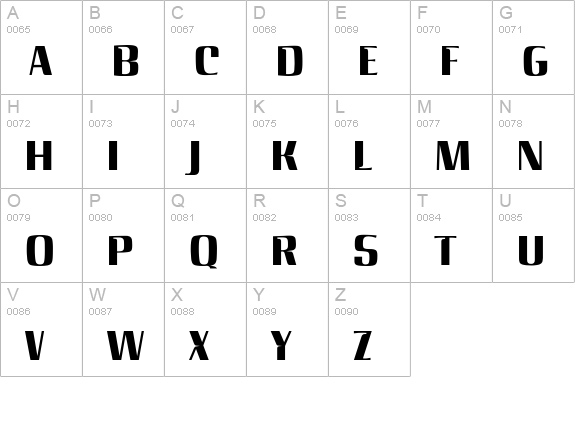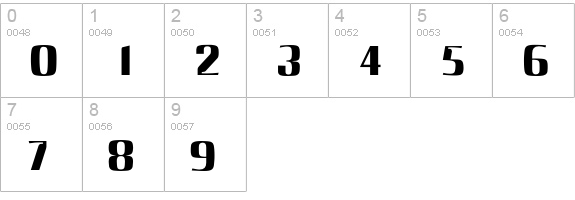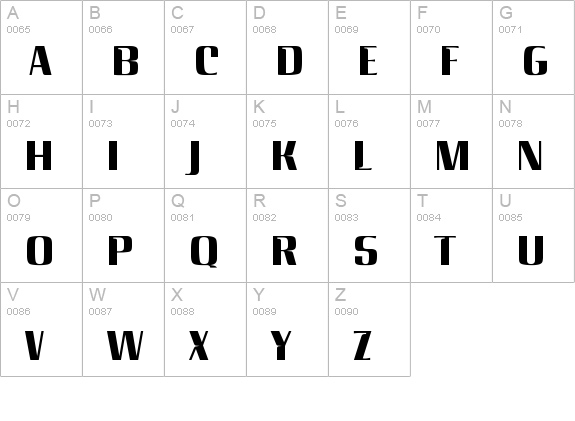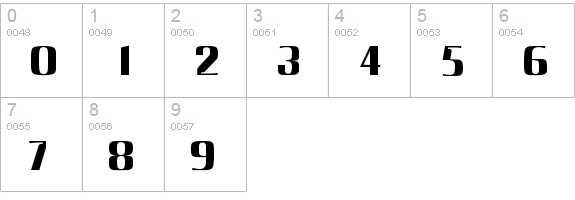
Steamer Font Details
Steamer font is a captivating and versatile typeface that exudes a sense of elegance and modernity. With its sleek and streamlined design, this font is perfect for adding a touch of sophistication to any design project. What sets Steamer font apart is not only its aesthetic appeal but also the fact that it is available for free. Yes, you read that right! Steamer font can be easily downloaded at FontsMarket.com without any cost. This makes it an ideal choice for designers, creatives, or anyone who wants to enhance their visual creations without breaking the bank. Whether you are designing a website, creating a logo, or designing a poster, Steamer font will effortlessly elevate your work to new heights. Its clean and legible characters make it suitable for both headlines and body text, ensuring that your message is conveyed with clarity and style. The versatility of Steamer font is further enhanced by its extensive character set. With a wide range of glyphs, including alternates, ligatures, and special characters, you have the freedom to customize and personalize your designs to suit your unique vision. The elegance and sophistication of Steamer font are made even more accessible by its free availability on FontsMarket.com. So why wait? Download Steamer font today and unleash your creativity without any limitations. Whether you are a professional designer or a hobbyist, this font is sure to inspire and empower you to create stunning visuals that leave a lasting impression.